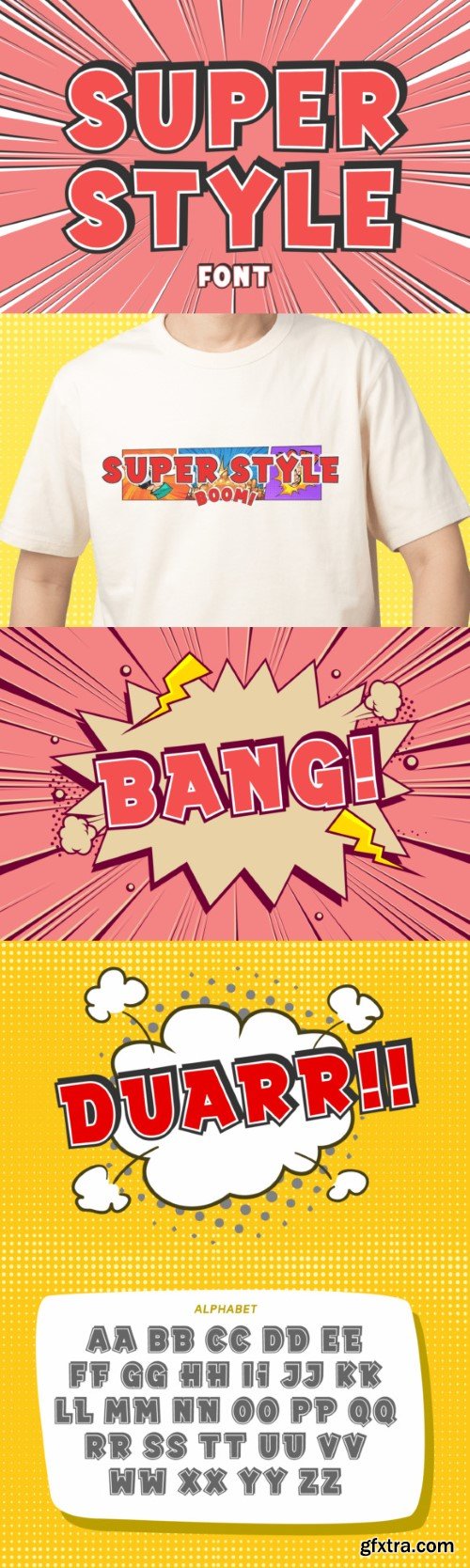
Super Style is a unique and creative display font. These lined, 3D-looking characters are perfect for your next creative project! You can use them to create charming typography designs for posters, quotes, apparel, websites, banners, advertising materials, book covers, and more.